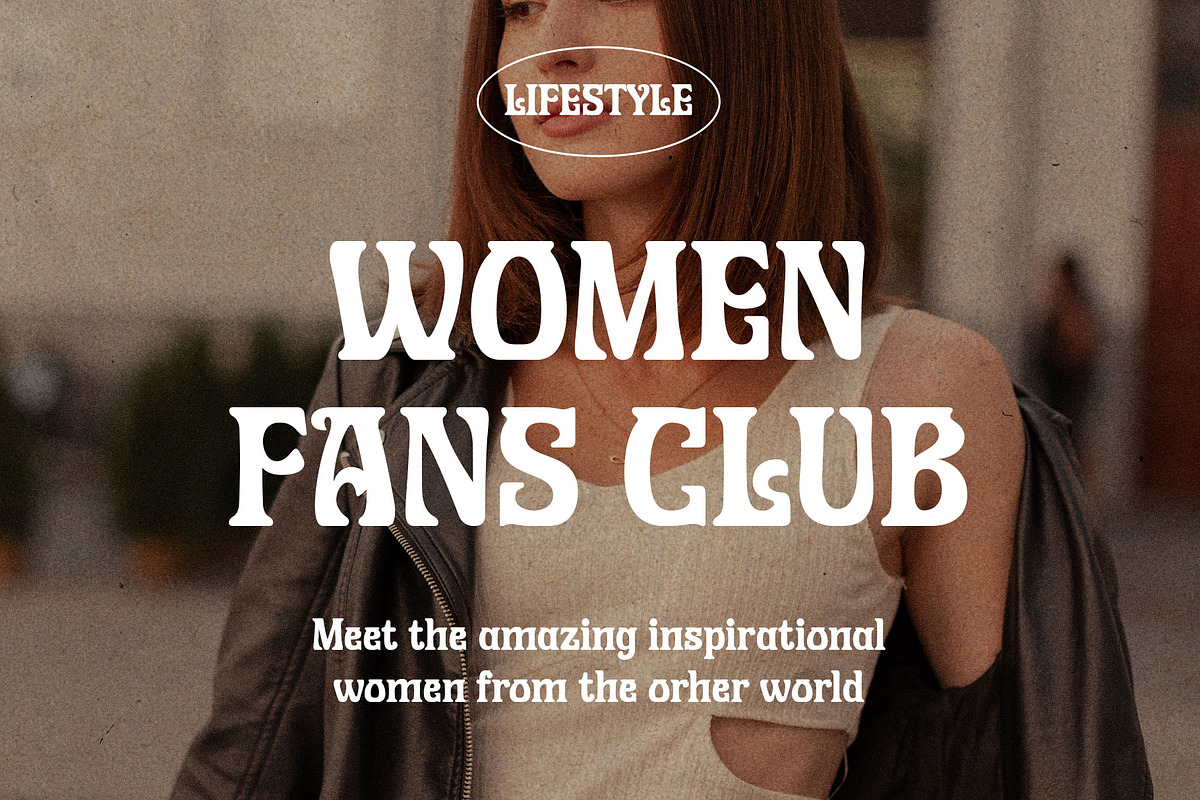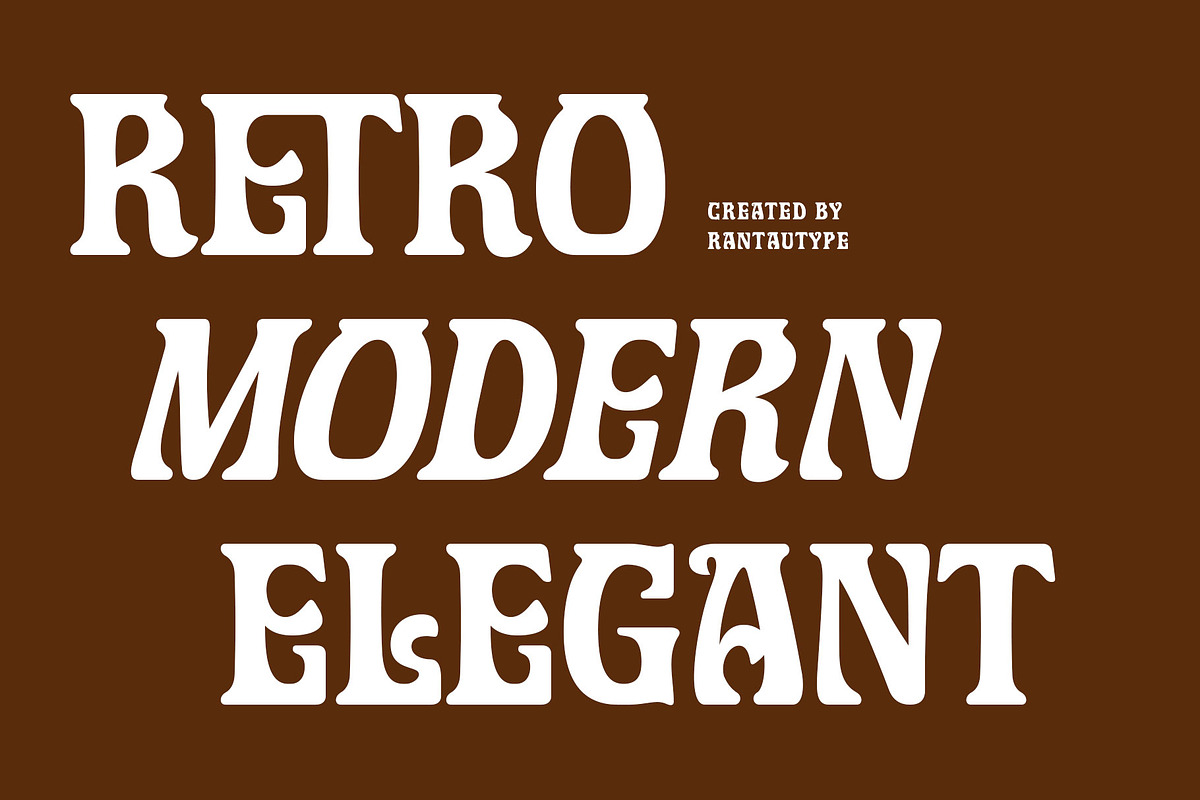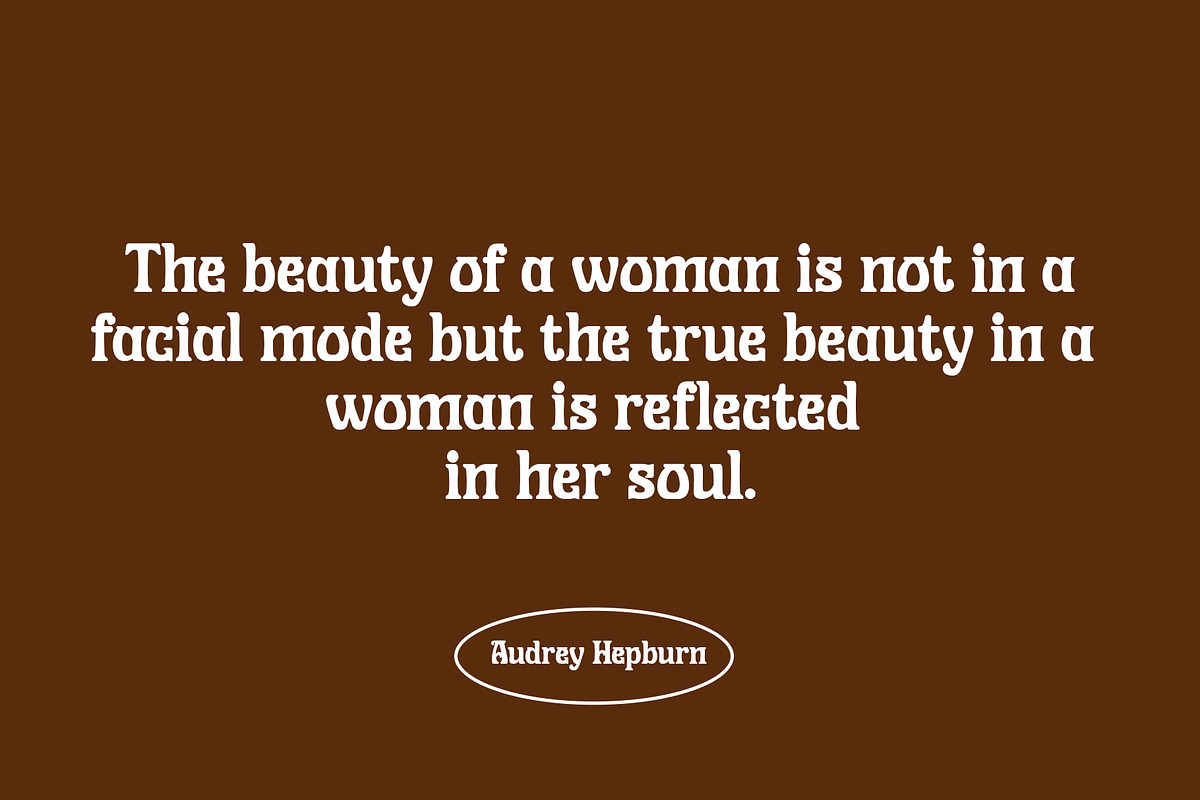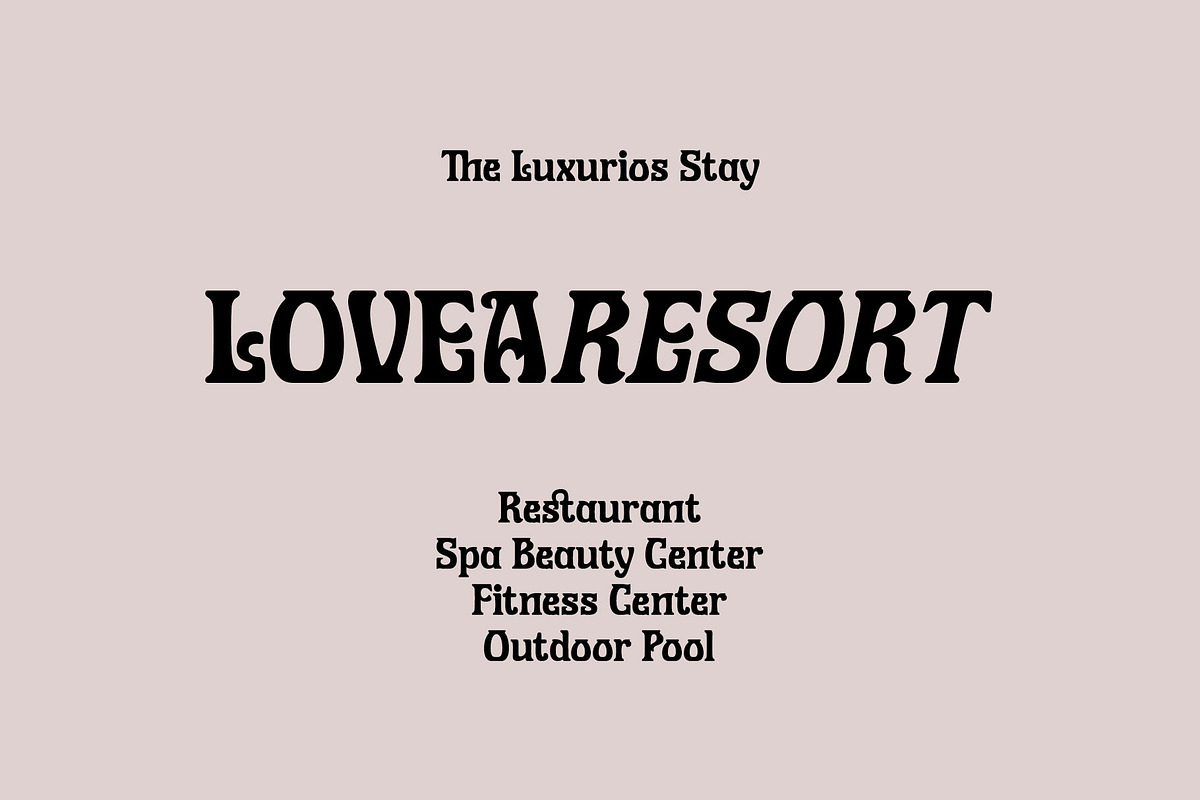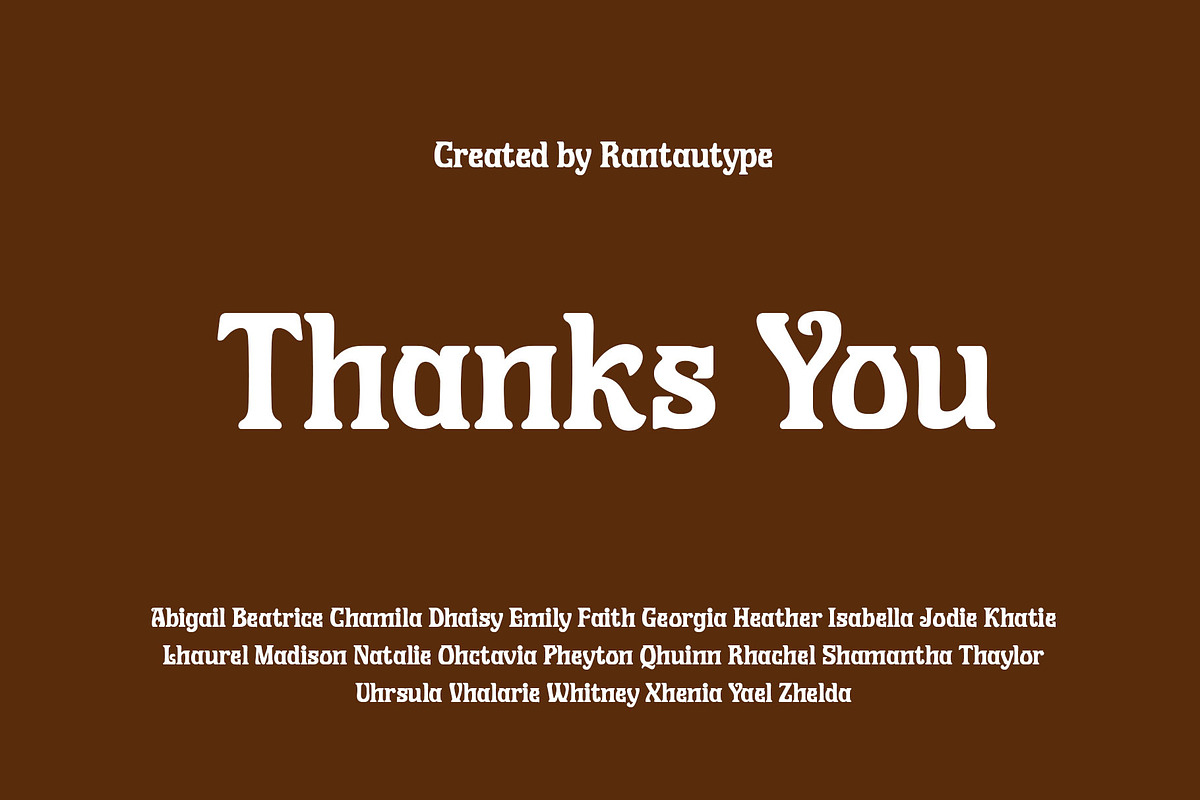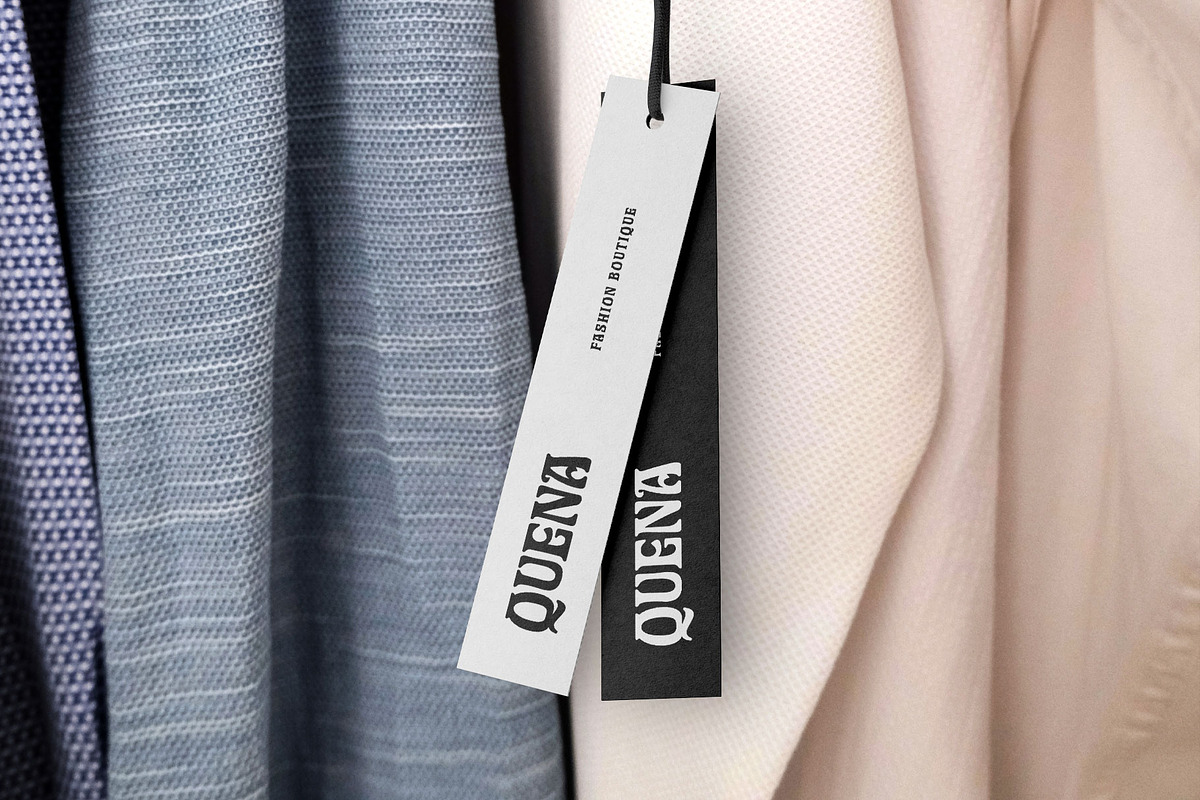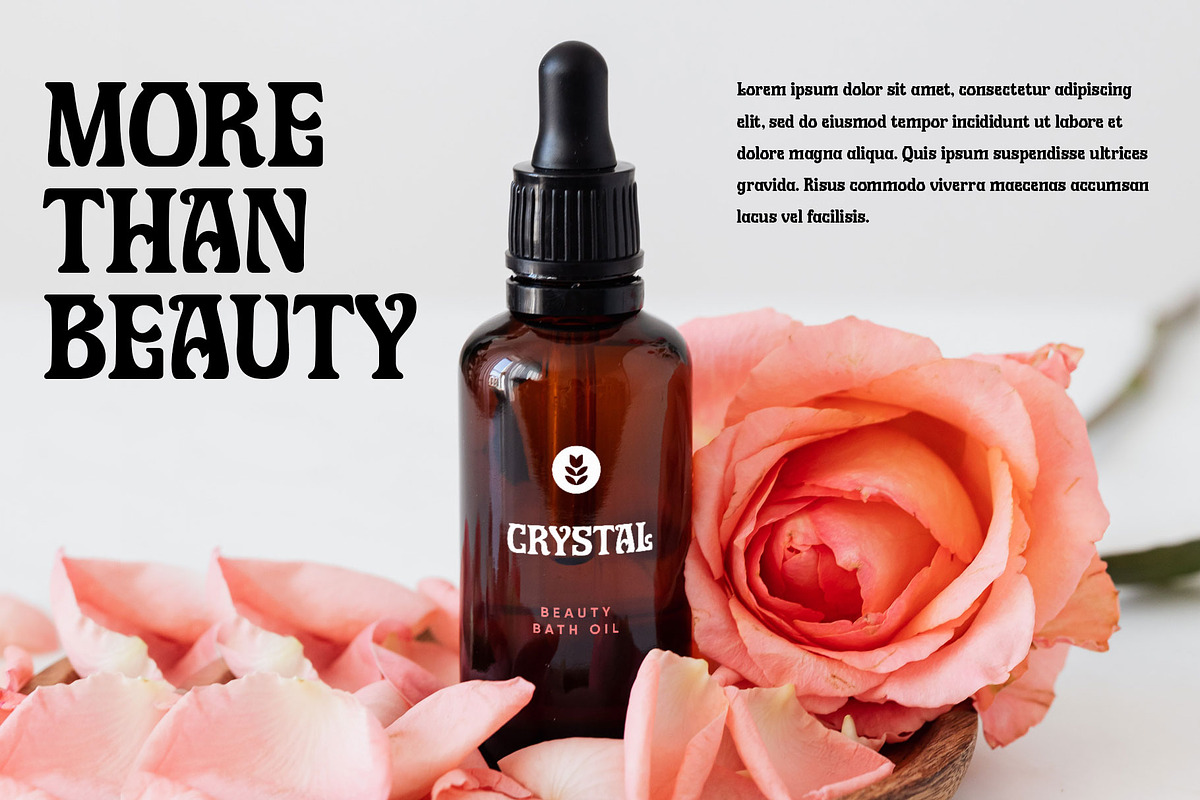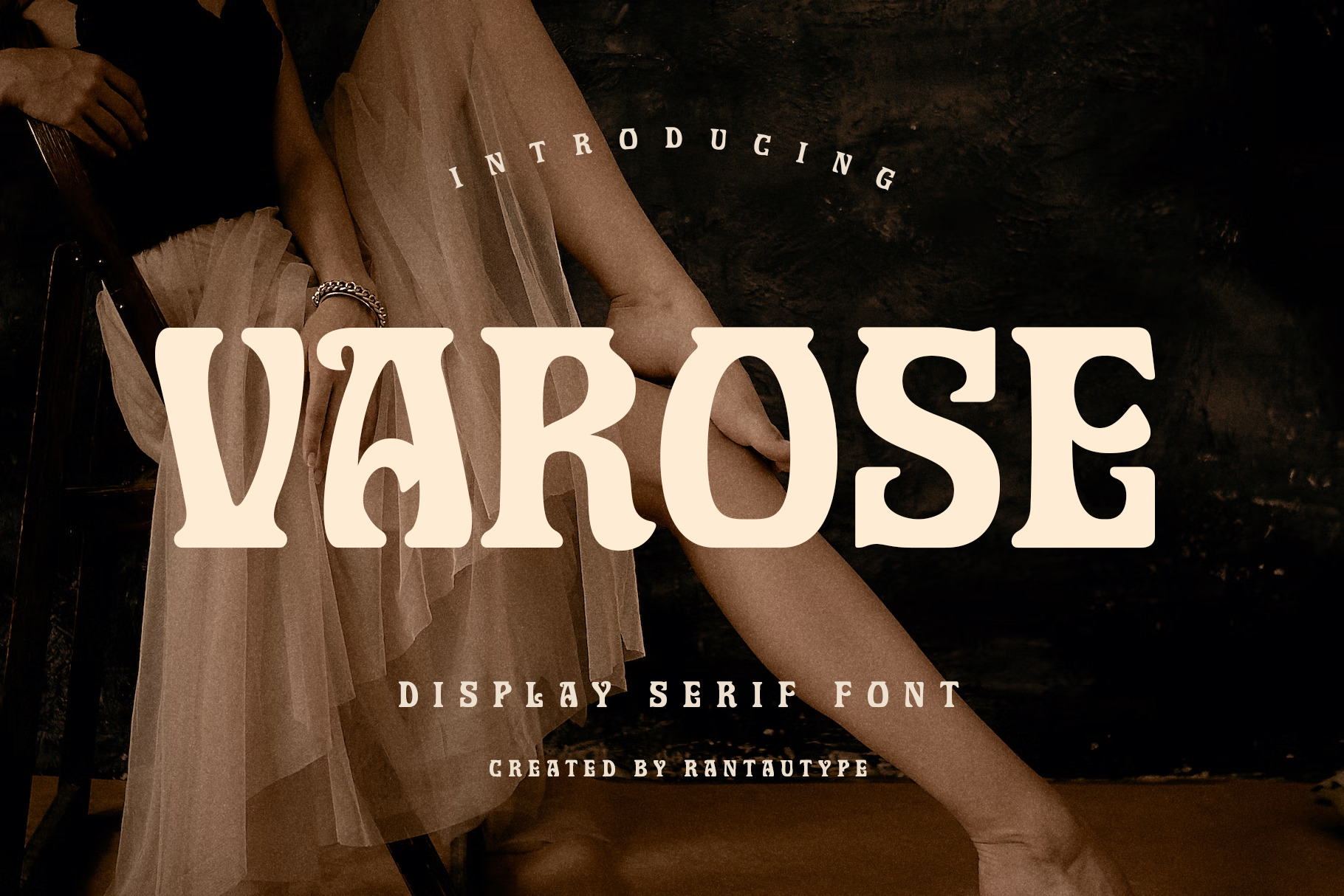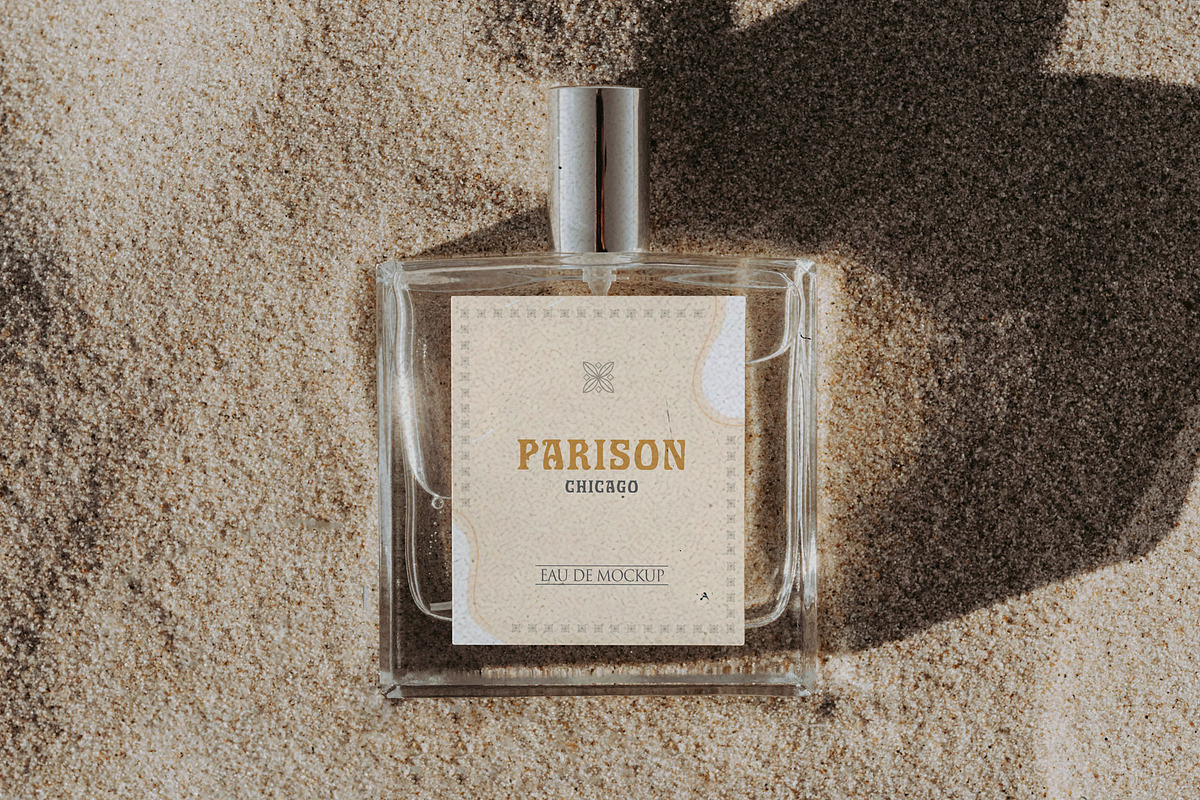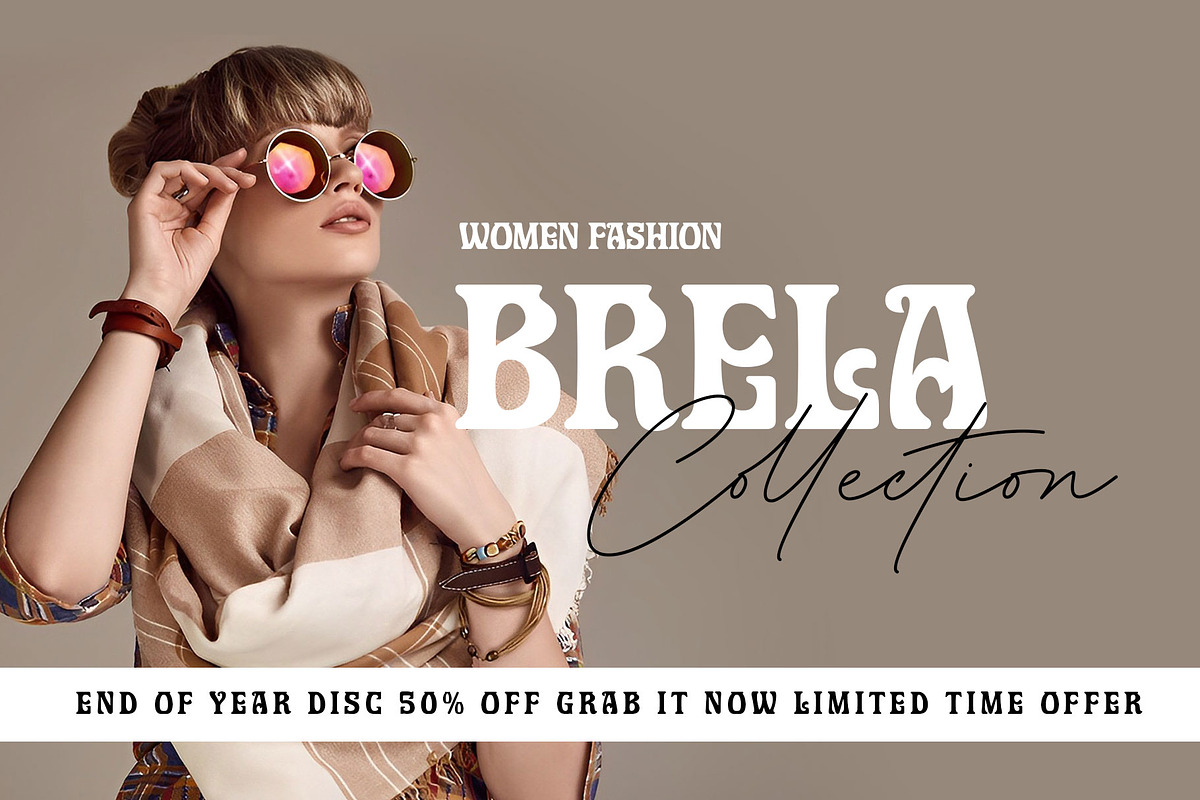
Varose Elegant Serif Font
Varose is a unique display serif font that embraces classic and nineteen vibes but look elegant. Its delicate curves and refined details create a sense of sophistication and femininity.
Varose brings a touch of charm and sophistication to branding, editorial designs, and more. We keep this font looks fashionable, elegant, luxury, premium, modern, catchy and easy to use. With its versatility and contemporary appeal,
Varose is a beautiful choice for any creative endeavor, chic, lifestyle design such as logos, title, watermark on photography, cover, branding, display and magazine, wedding event, quotes, album cover, business card, corporate, business project and many other design project. Varose to elevate you branding!!
- Reguler and Italic
- Standar letter A-Z and a-z
- Alternate and Ligature
- Multilinggual support
- Opentype Feature